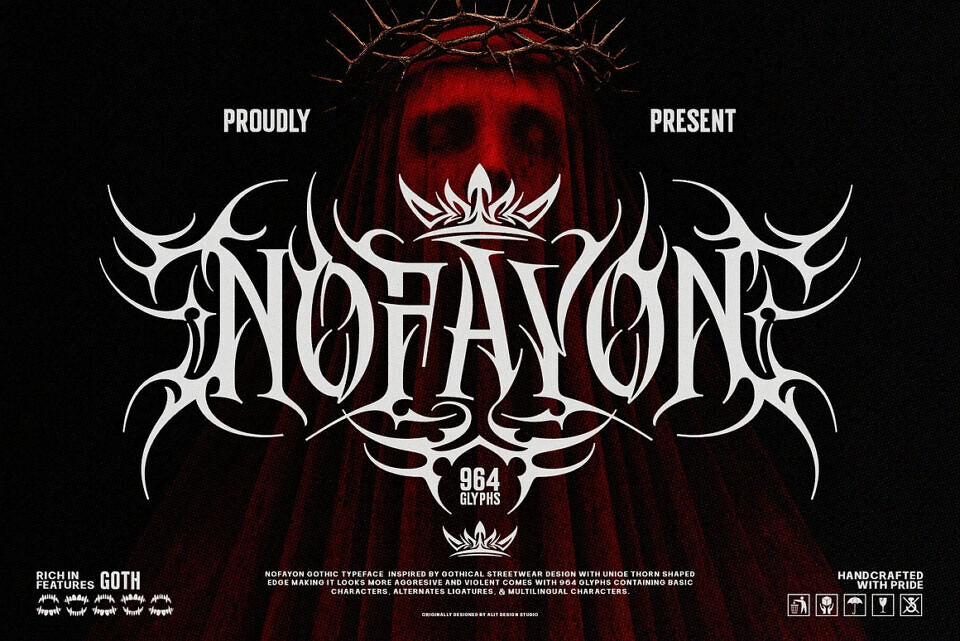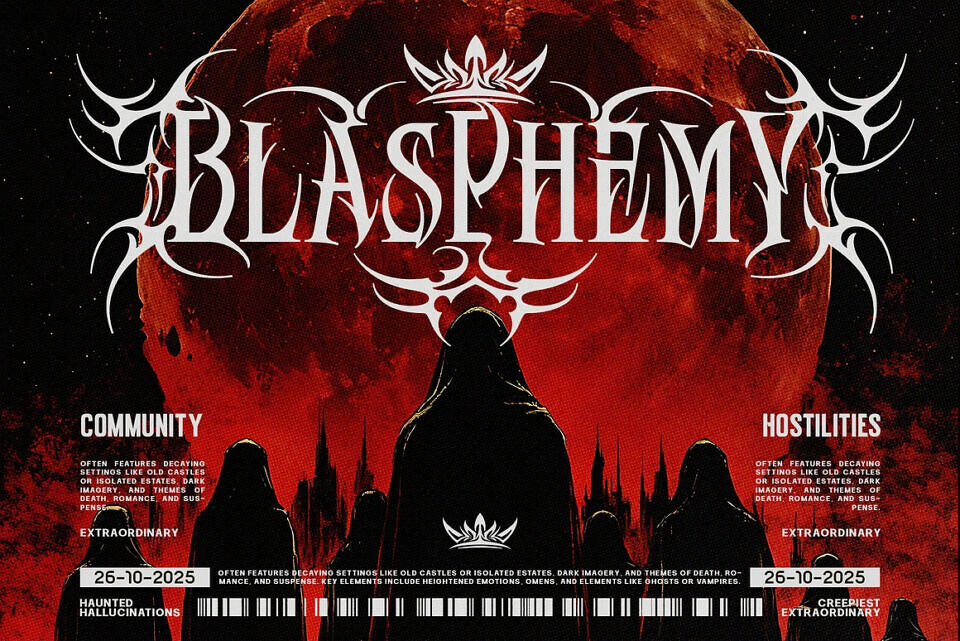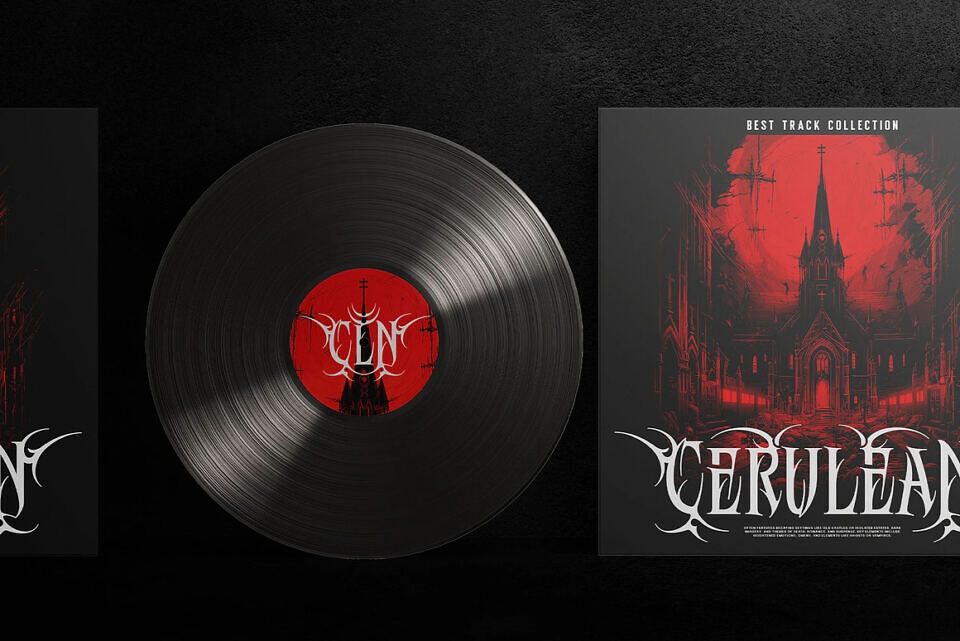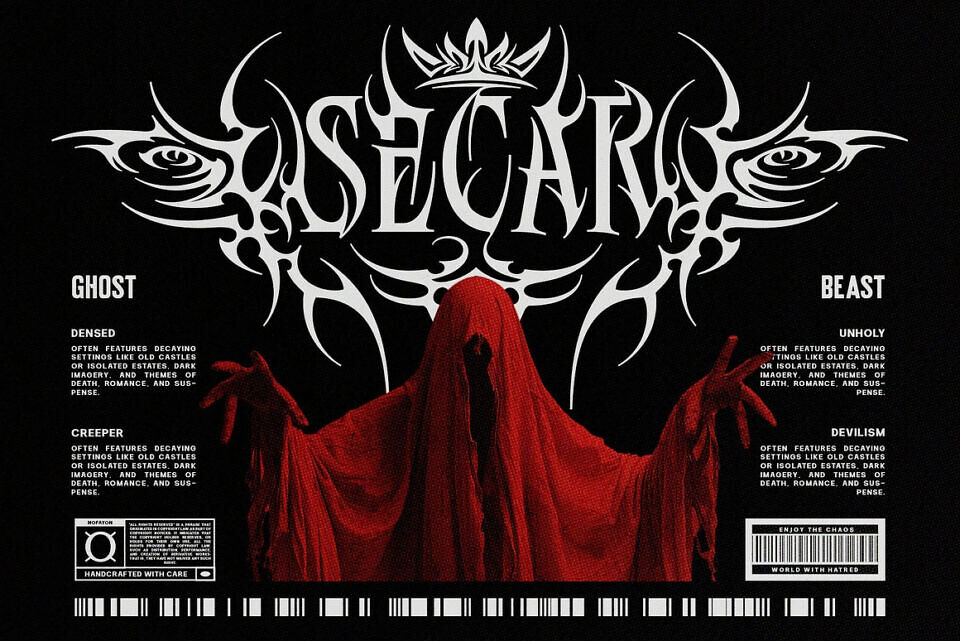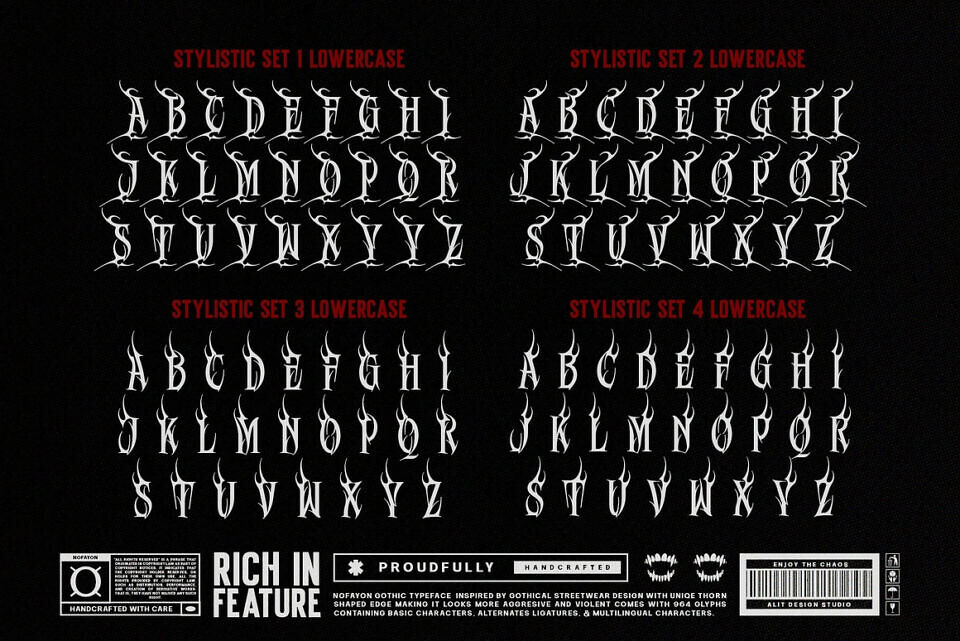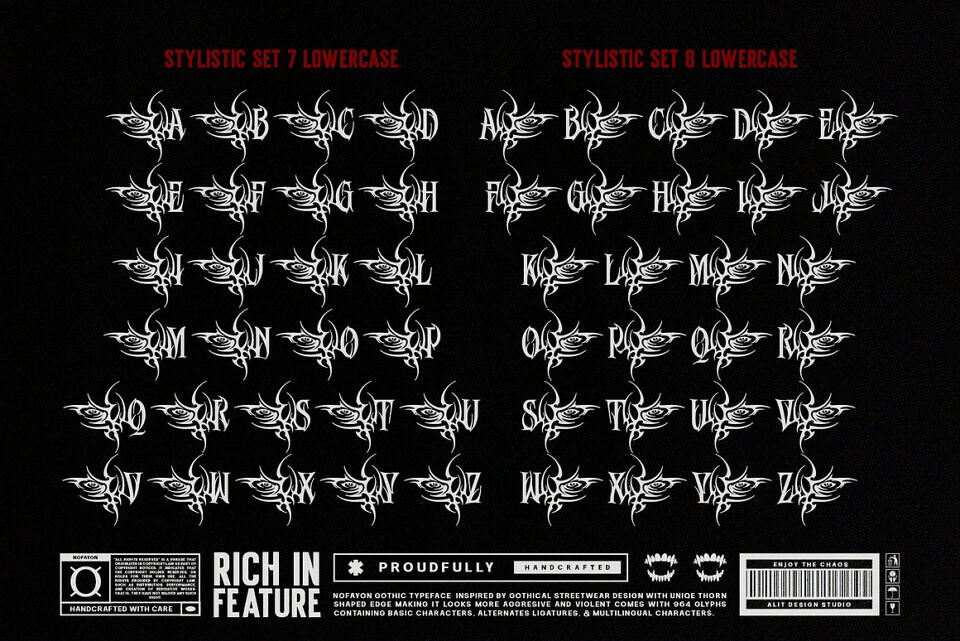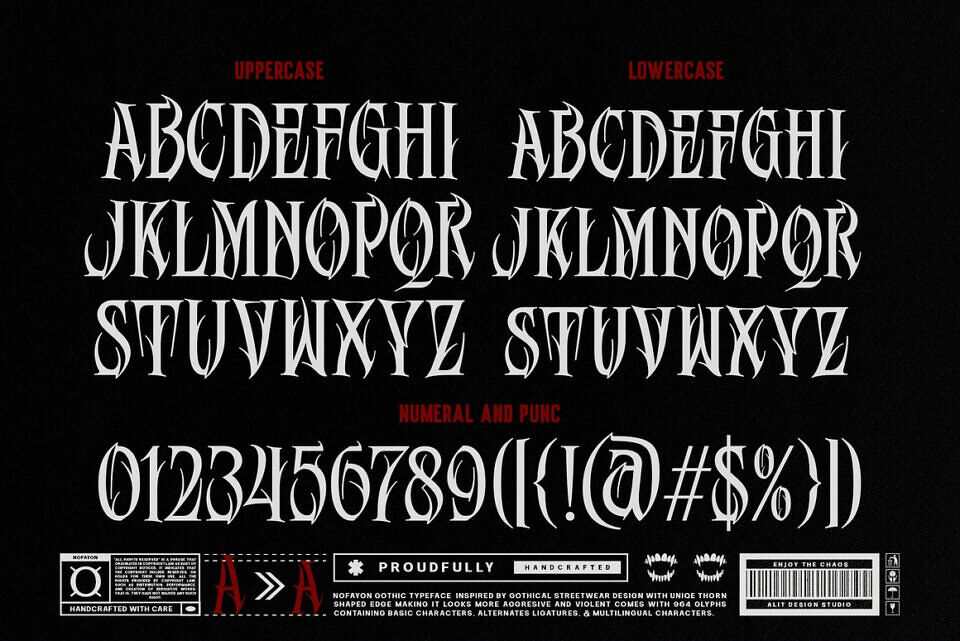
Nofayon Font
Introducing Nofayon, an aggressive gothic typeface that channels the raw, untamed energy of underground streetwear and dark aesthetics. This font is not for the faint of heart. Inspired by “gothical streetwear design,” Nofayon is defined by its unique, thorn-shaped edges that give every character a “violent and aggressive” feel, perfect for designs that demand to be seen.
This isn’t just a font; it’s a complete design toolkit. Nofayon comes “Rich in Feature,” boasting a massive 964 glyphs. This extensive library gives you unparalleled creative freedom.